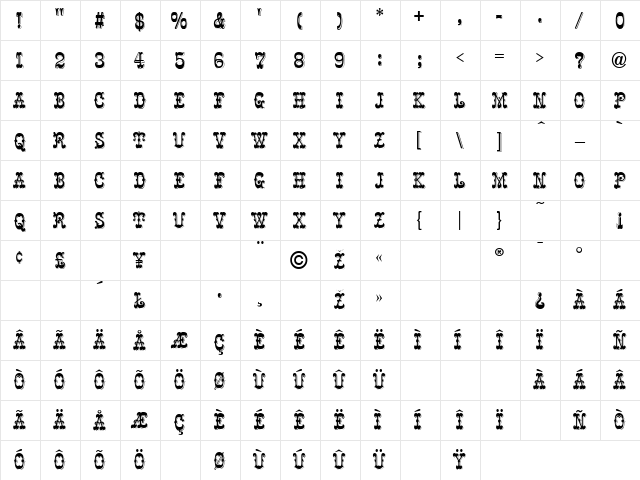
Complete Ringmaster Regular glyph index. Displaying only characters natively supported by Ringmaster Regular font.
Ringmaster is a composed and adaptable typeface that performs quietly and consistently across a wide range of design contexts.
Who designed the Ringmaster Regular font?